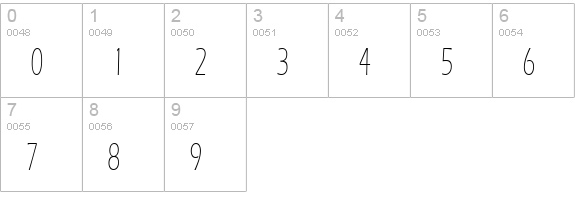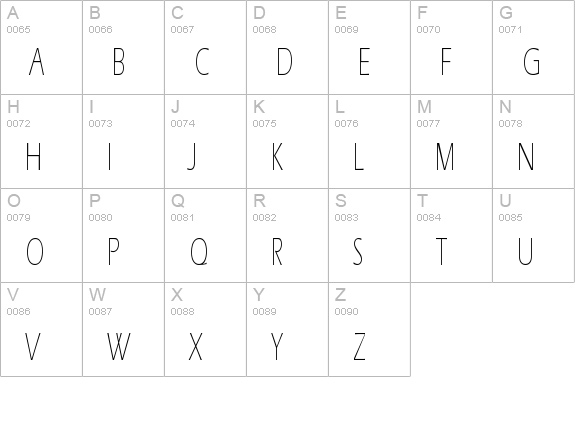
Eric Lite Thin Normal is a delicate, low-contrast variant in the Eric typeface family \xE2\x80\x94 well suited to fashion editorial, minimal branding, and high-contrast display.
Eric Lite Thin Normal is a sleek and elegant font that exudes sophistication and modernity. With its clean lines and minimalist design, this font is perfect for creating a polished and professional look in your projects. The thin weight of the font adds a touch of delicacy and refinement, making it ideal for use in a variety of design applications. What's even better is that Eric Lite Thin Normal is available for free download at FontsMarket.com. This means you can easily access this versatile font and elevate your designs without breaking the bank. Whether you're working on branding materials, website design, or any other creative project, Eric Lite Thin Normal is a great choice for adding a touch of class and style. Download it today and see for yourself the impact this font can have on your designs.